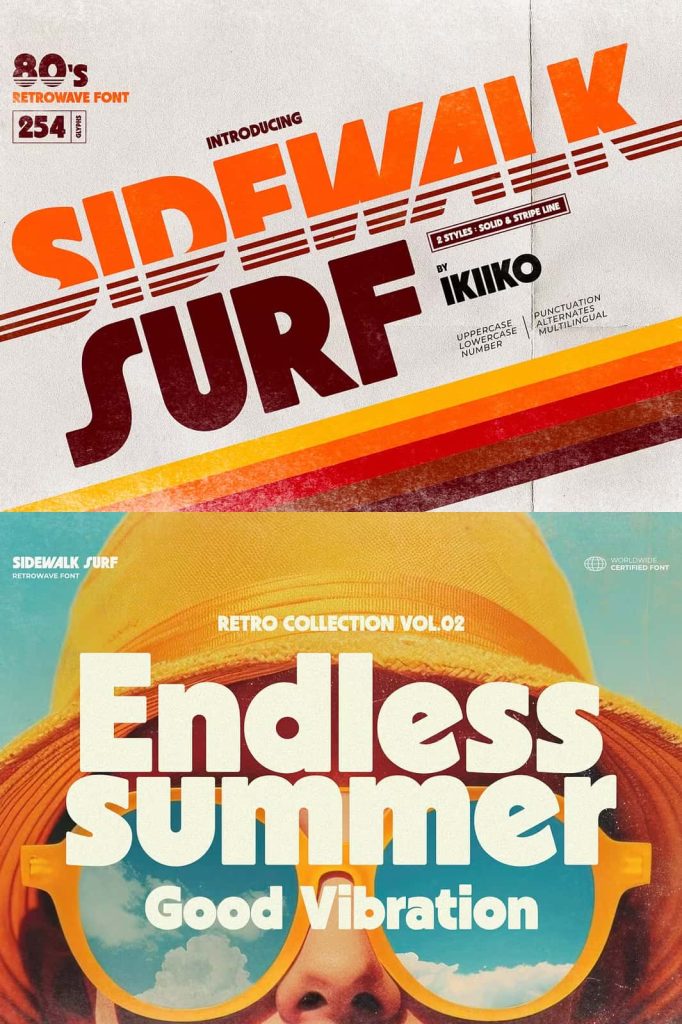
Sidewalk Surf – 80s Retrowave FontleastedJuly 17, 2025Fonts Sidewalk Surf is a bold and dynamic font inspired by the vibrant and nostalgic vibes of the 1980s retrowave culture. Download